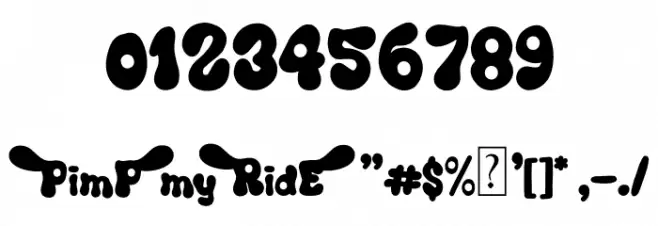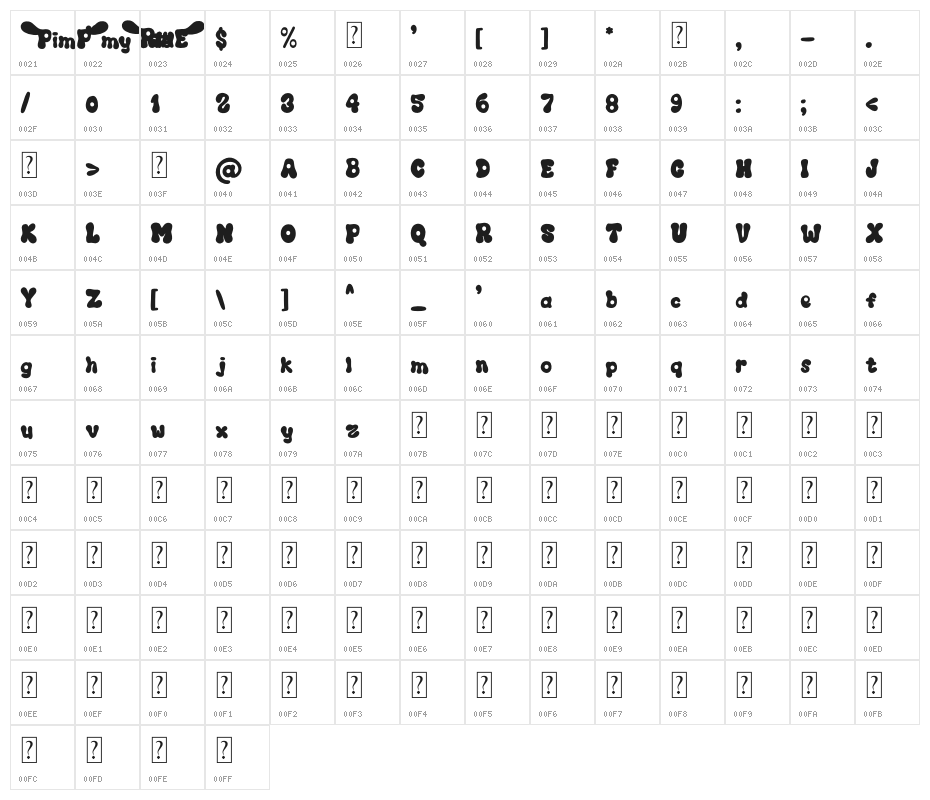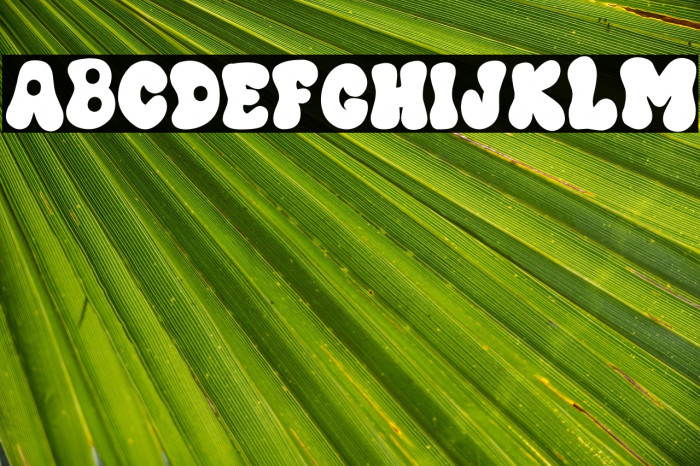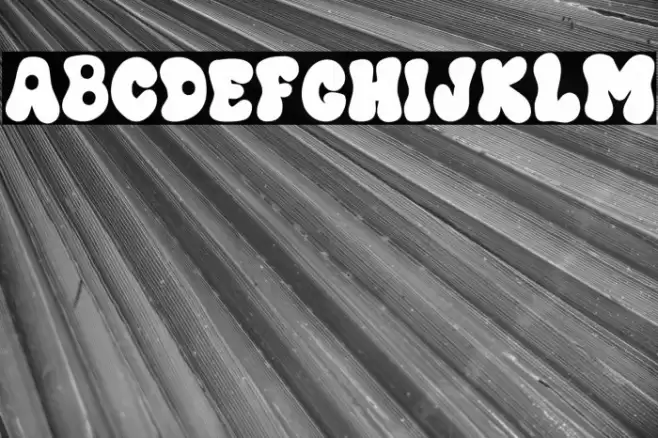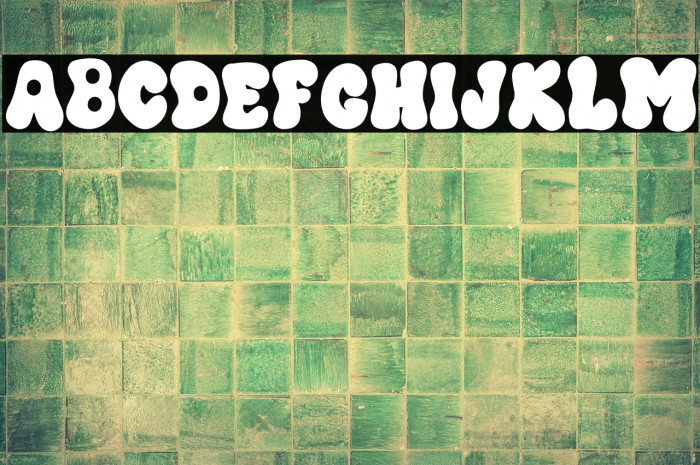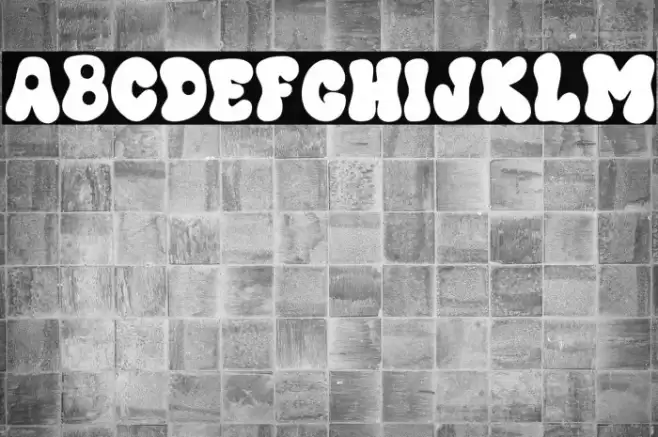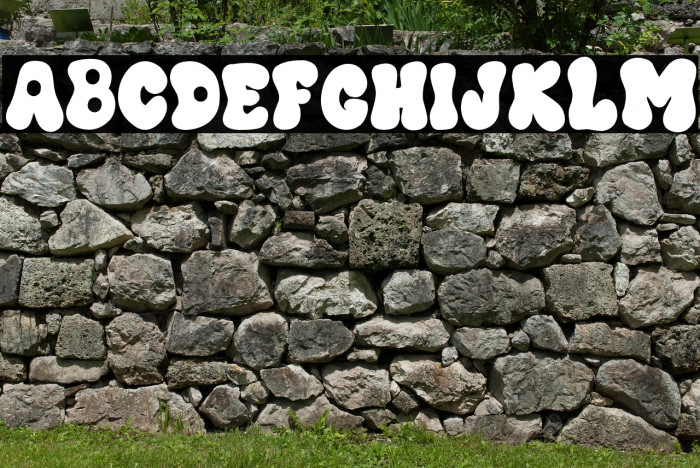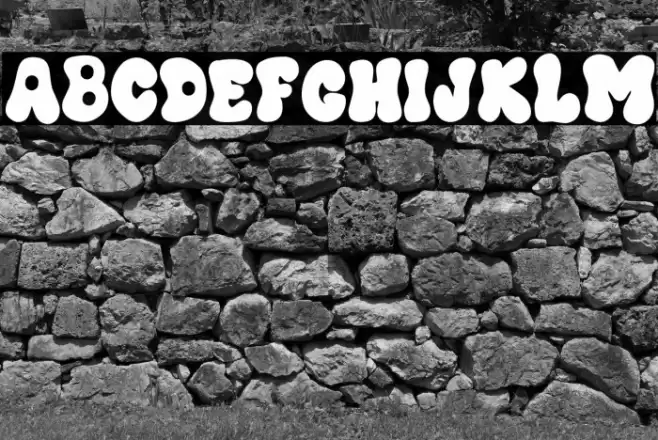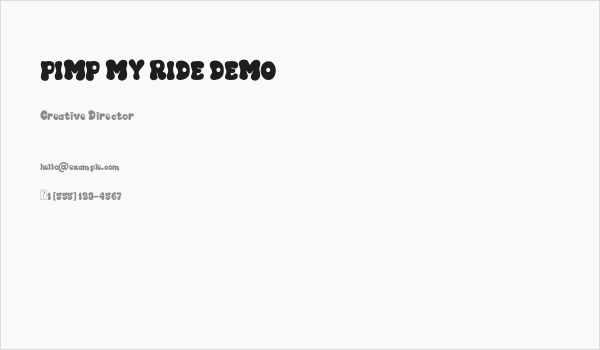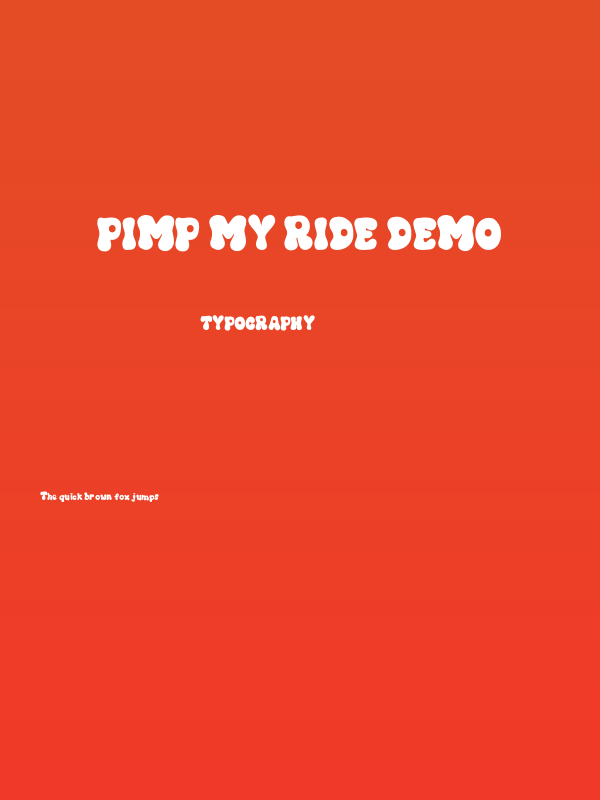
PIMP MY RIDE DEMO Font
PIMP MY RIDE DEMO Description
This playful and bold font features a bubbly, rounded style that exudes a sense of fun and creativity. The characters are thick and have a whimsical appearance, making them stand out with a unique personality. The font includes both uppercase and lowercase letters, numbers, and a variety of special characters. Its exaggerated curves and soft edges give it a friendly and approachable feel, perfect for projects that aim to capture attention and convey a lively atmosphere.